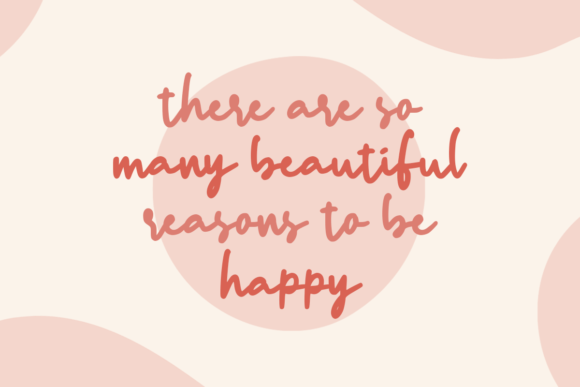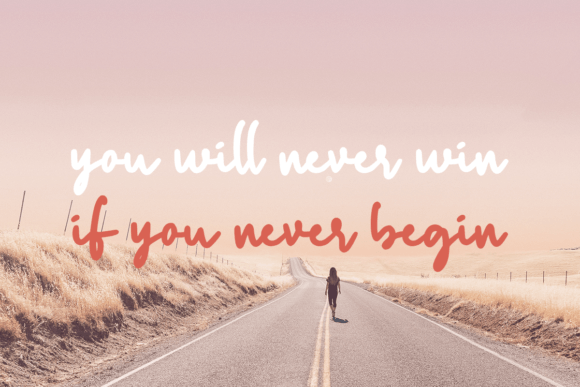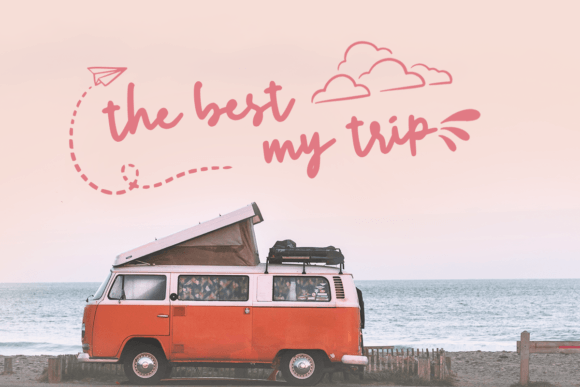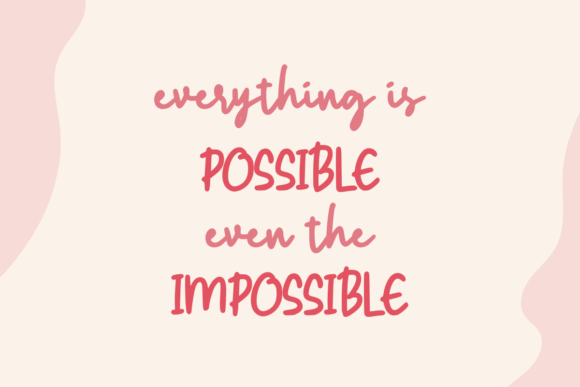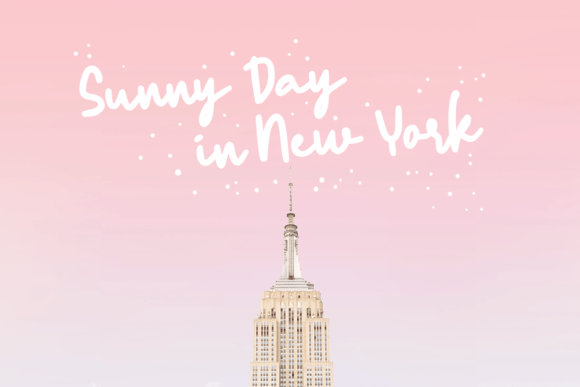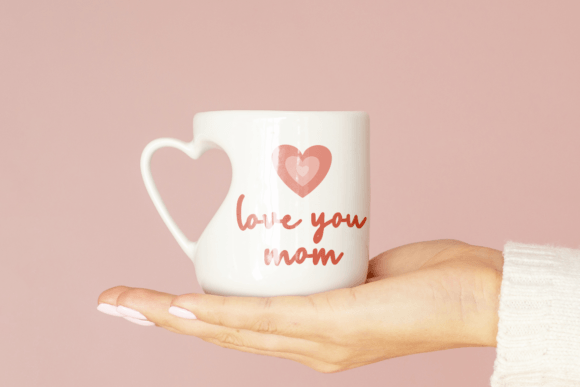
Bongky Font: Elevate Your Creativity with Elegance
In the world of typography, a font can make all the difference in transforming a simple design into a masterpiece. Bongky Font is a game-changer, offering a magical script font that combines elegance with a touch of whimsy. Whether you’re a designer, crafter, or DIY enthusiast, Bongky Font is the perfect addition to your creative arsenal.
The Magic of Bongky Font
Bongky Font is carefully crafted to bring a sense of sophistication and refinement to your designs. This beautiful script font is perfect for a variety of creative projects, from Instagram posts and stories to calligraphy scripts and DIY crafts. With Bongky Font, you can turn any idea into a stunning work of art that captivates your audience.
Key Features of Bongky Font
- Elegant Script Style: Bongky Font boasts a beautiful, flowing script style that’s perfect for creating eye-catching designs.
- Magical Touch: The font’s unique charm adds a touch of magic to your designs, making them stand out from the crowd.
- Versatile: Bongky Font is suitable for a wide range of creative projects, from digital designs to handmade crafts.
- Easy to Use: The font is user-friendly, making it easy to incorporate into your designs, even for those with limited typography experience.
Uses for Bongky Font
Bongky Font is an incredibly versatile font that can be used in a variety of creative projects, including:
- Instagram Graphics: Elevate your Instagram posts and stories with Bongky Font’s elegant script style.
- Calligraphy Scripts: Use Bongky Font to create beautiful calligraphy scripts for DIY projects, such as wedding invitations, greeting cards, and more.
- DIY Crafts: Add a touch of elegance to your DIY crafts, such as handmade cards, gift tags, and scrapbooking projects.
- Branding and Marketing: Use Bongky Font to create stunning brand identities, logos, and marketing materials that showcase your brand’s personality.
Tips for Using Bongky Font
To get the most out of Bongky Font, here are some tips to keep in mind:
- Experiment with Colors: Bongky Font looks stunning in a variety of colors, so don’t be afraid to experiment and find the perfect hue for your design.
- Play with Pairings: Combine Bongky Font with other fonts or graphics to create unique and eye-catching designs.
- Keep it Simple: Don’t overcomplicate your design – Bongky Font’s elegance shines when used in simple, yet effective designs.
Bongky Font is a game-changing script font that can elevate your creative projects to new heights. With its elegant style, magical touch, and versatility, it’s the perfect addition to any designer’s or crafter’s toolkit. Whether you’re looking to create stunning Instagram graphics, beautiful calligraphy scripts, or unique DIY crafts, Bongky Font is the perfect choice. So why wait? Unlock your creativity with Bongky Font and turn your ideas into true works of art!